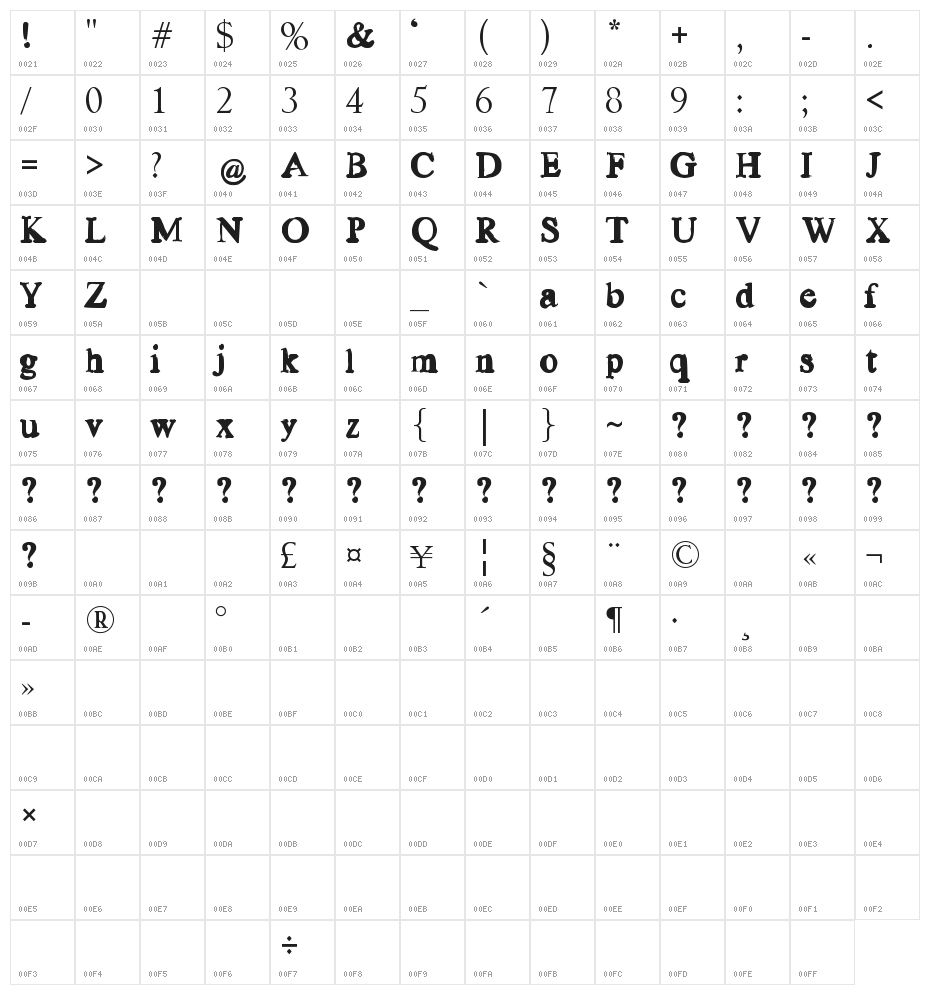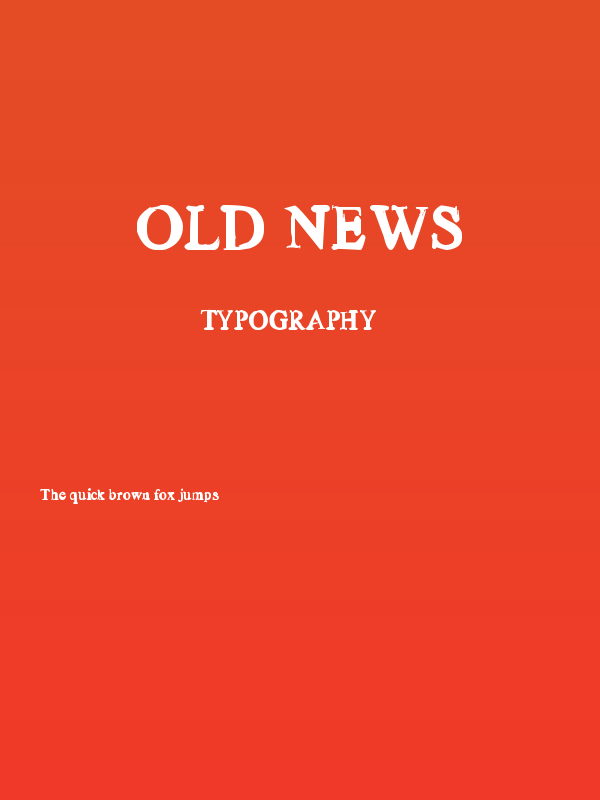
Old news Font
Old news Description
This font exudes a vintage charm reminiscent of old newspaper headlines. The bold, serif letters have a slightly distressed appearance, giving them a worn, historical feel. The uppercase characters are robust and commanding, while the lowercase letters maintain a consistent style with a touch of elegance. The numerals are clear and legible, matching the overall aesthetic of the font. Special characters are well-integrated, maintaining the same vintage appeal. This font is perfect for projects that require a touch of nostalgia or a classic, authoritative look.